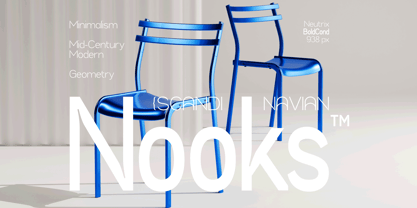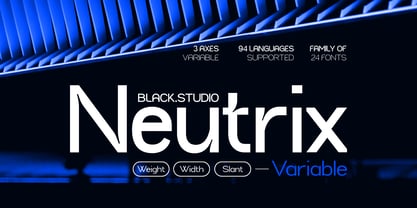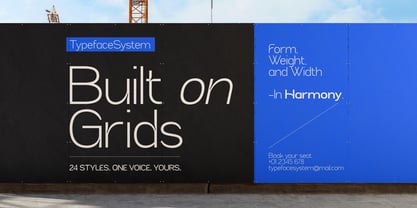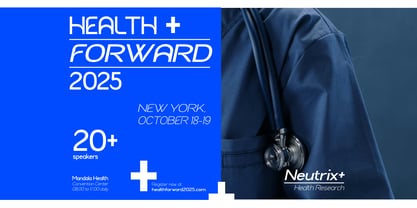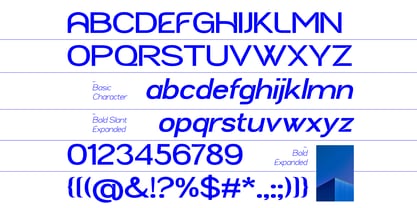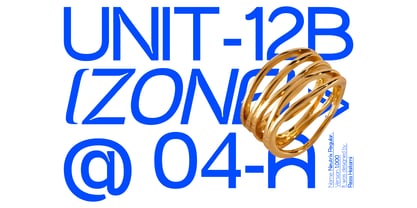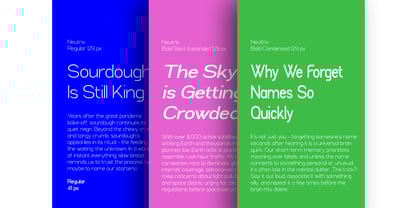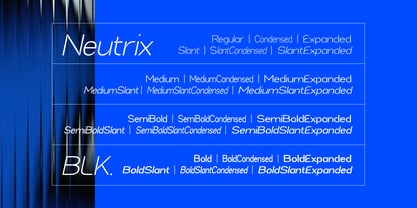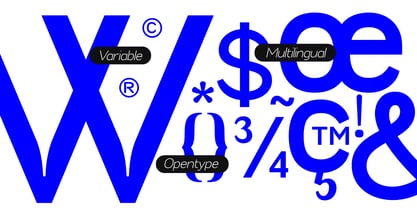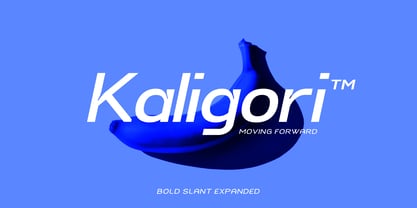
Neutrix
by Black Studio
The Neutrix Font Family was designed by Reza Haitami and published by Black Studio. Neutrix contains 25 styles and family package options.
Neutrix is a modern font family with 3 axes: Weight, Width, and Slant, available in 24 statistical styles. Featuring a Neo-Grotesk style, Neutrix is neutral, clean, and highly flexible — perfect for branding, UI/UX, editorial, and digital design.
With stable letterforms and balanced proportions, Neutrix maintains readability across various sizes. It includes full OpenType features and support for Latin Extended languages.
Key features:
• 3 Axis Variables (Weight, Width, Slant)
• 24 Static Styles
• Full OpenType features
• Multilingual support